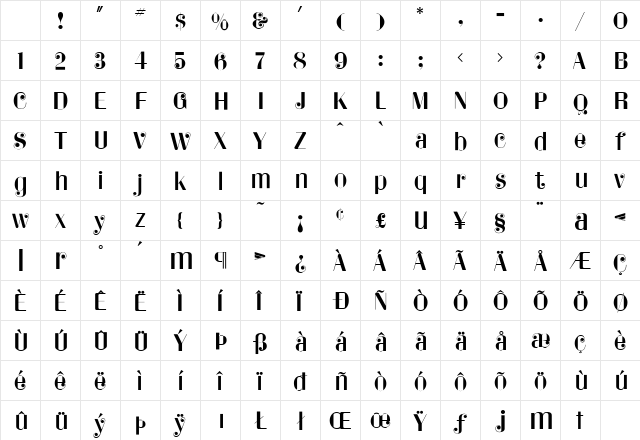
Complete Bonaparte Medium glyph index. Displaying only characters natively supported by Bonaparte Medium font.
Bonaparte is a composed and adaptable typeface that performs quietly and consistently across a wide range of design contexts.